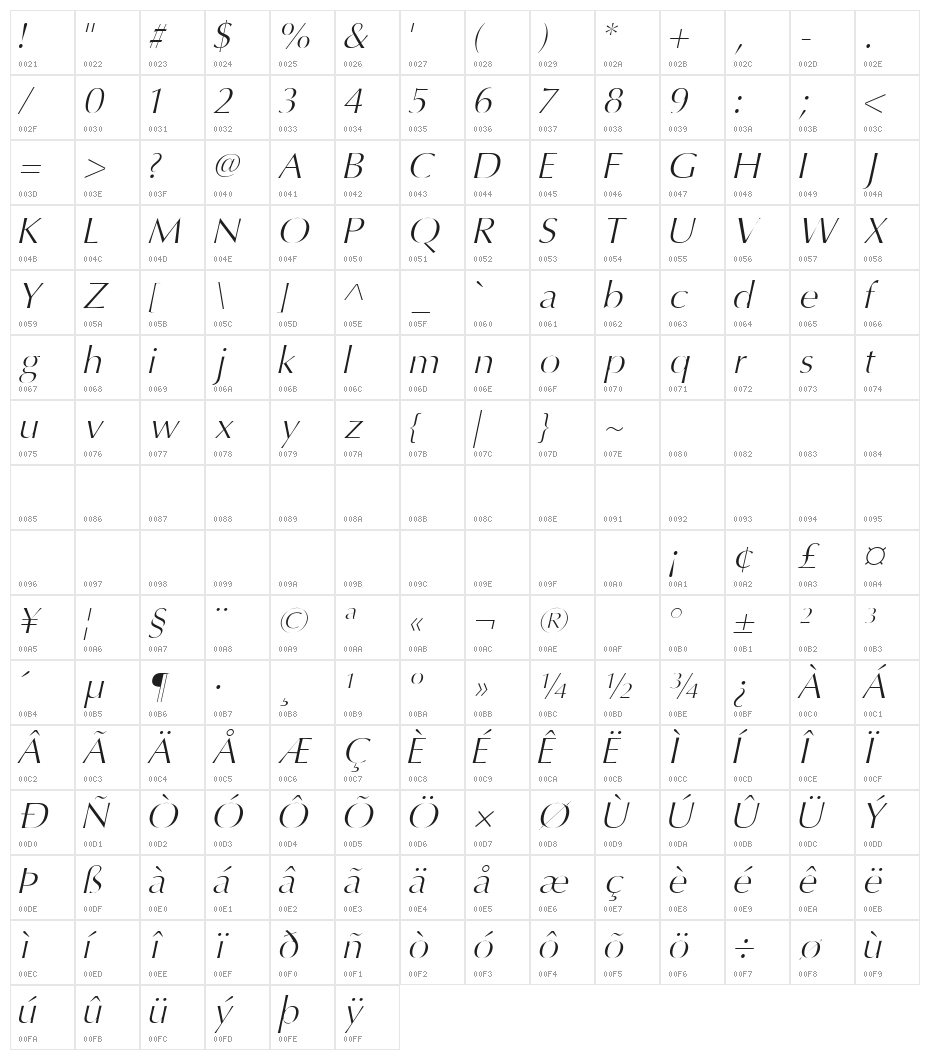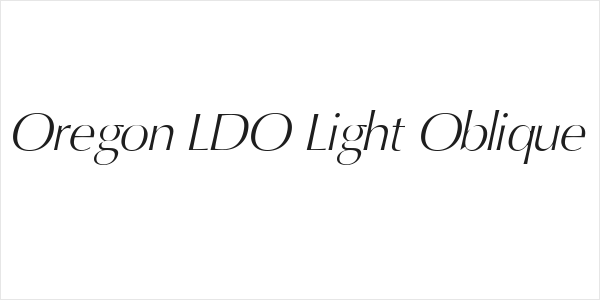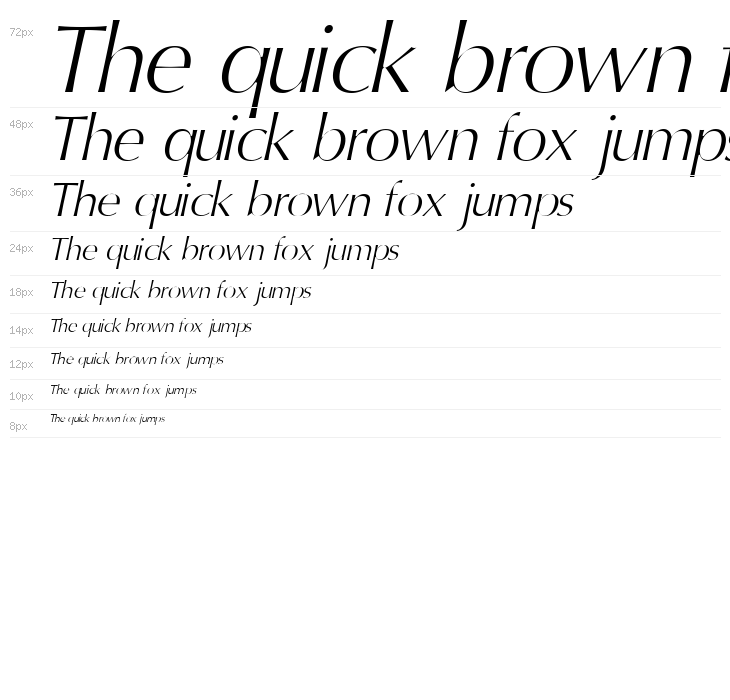
Oregon LDO Light Oblique Font
Oregon LDO Light Oblique Description
This elegant font features a refined and sophisticated design with a light oblique style. The characters are sleek and elongated, giving a sense of movement and fluidity. The uppercase letters are tall and graceful, while the lowercase letters maintain a consistent flow. The numerals are clear and distinct, complementing the overall aesthetic. Special characters are designed with the same attention to detail, ensuring a cohesive look across all glyphs. The font's light weight and oblique angle make it ideal for projects that require a touch of elegance and modernity.
| Proposed Projects | Ideal for fashion magazines, luxury branding, wedding invitations, and elegant editorial design. |